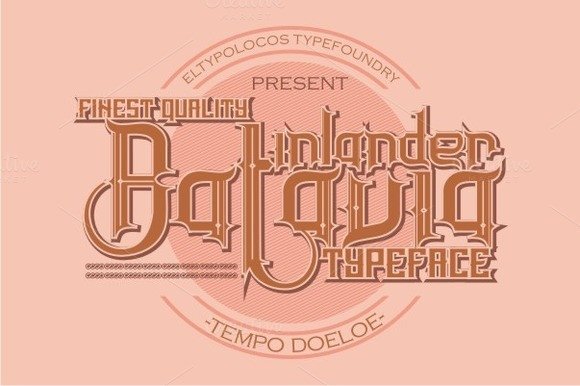
Inlander Batavia Font
**Introducing Inlander Batavia: The Typeface That Captures the Spirit of Batavia**
In the heart of the bustling metropolis of Jakarta, where history and culture intertwine, the Inlander Batavia font was born. Inspired by the grandeur of a bygone era, this remarkable display typeface exudes a captivating aura that will elevate your designs to unparalleled heights.
Embark on a journey through time as you immerse yourself in the intricate details of each character. Inlander Batavia is a testament to the enduring legacy of Batavia, a city that once stood as a vibrant hub of trade and cultural exchange.
With its striking presence and timeless beauty, Inlander Batavia is the perfect choice for:
* **Captivating Headlines:** Command attention and leave a lasting impression with Inlander Batavia's bold and distinctive headings.
* **Memorable Logos:** Create logos that embody the essence of your brand, combining tradition and modernity in perfect harmony.
* **Artistic Invitations:** Elevate your invitations to works of art, inviting guests to share in moments of joy and celebration.
* **Expressive T-Shirt Designs:** Unleash your creativity and make a statement with Inlander Batavia's unique aesthetic on custom t-shirts.
* **Personalized Greeting Cards:** Express your heartfelt sentiments in style with greeting cards adorned with the elegant curves of Inlander Batavia.
* **Vibrant Posters:** Create posters that ignite imaginations and transport viewers to a world of wonder and inspiration.
* **Eye-Catching Labels:** Distinguish your products with labels that showcase the timeless appeal of Inlander Batavia.
* **Stunning Book Covers:** Give your literary masterpieces the covers they deserve, capturing the essence of your stories with Inlander Batavia's captivating aura.
* **Professional Brochures:** Create brochures that leave a lasting impact, conveying your message with the sophistication and elegance of Inlander Batavia.
**Experience the Power of Inlander Batavia Today**